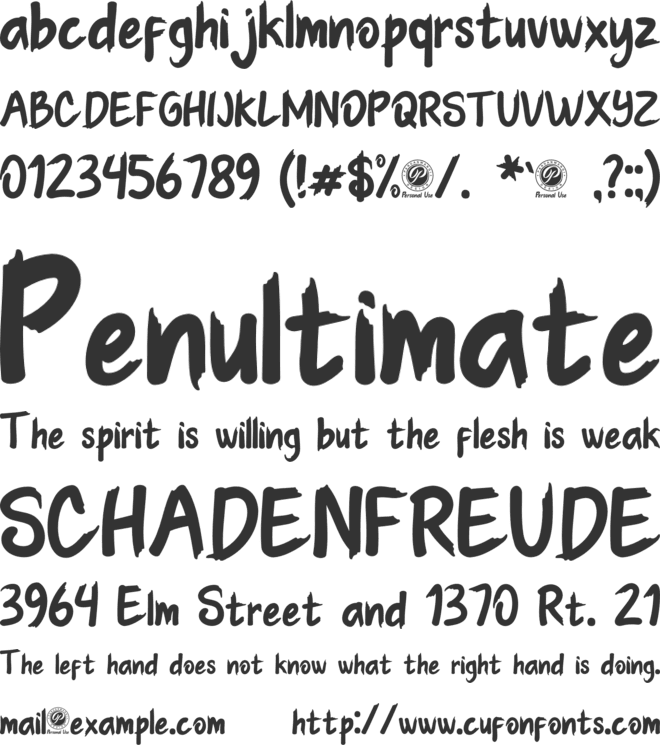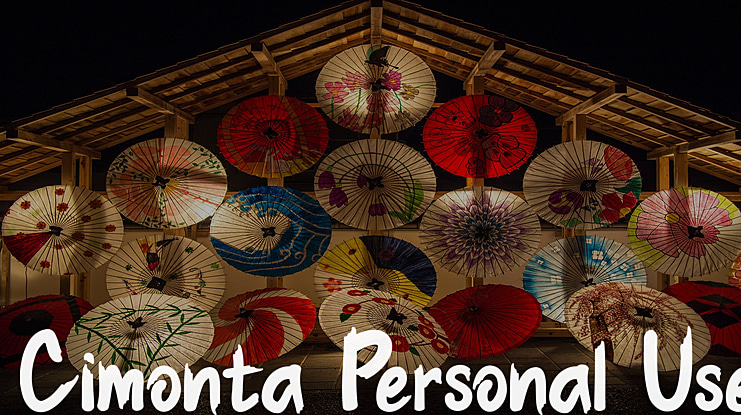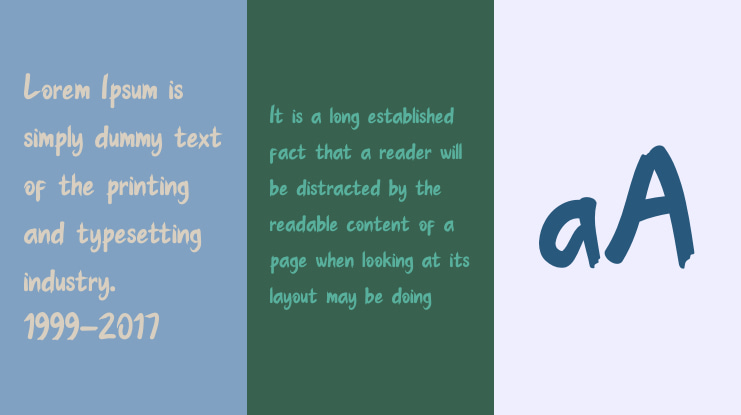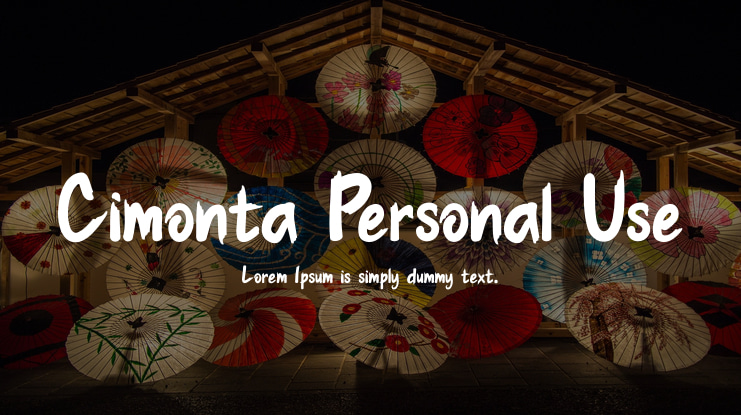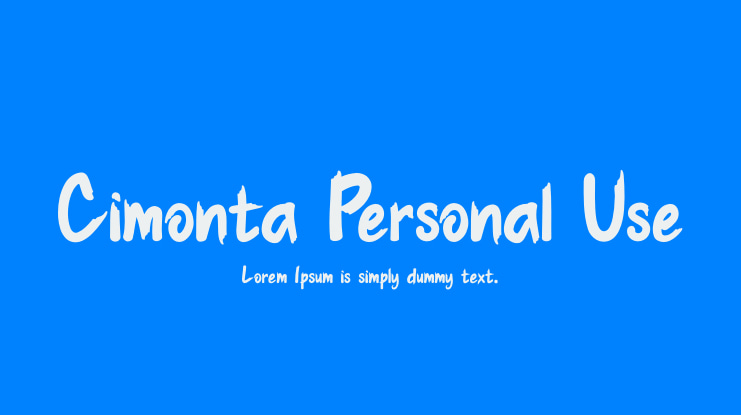
Cimonta Personal Use Font
Cimonta is a cute comic font, carefully crafted to become a true favourite. Its casual charm makes it seem incredibly simple, easy to read and, ultimately, incredibly versatile. Cimonta will look amazing in any context, whether it's used in a busy background or as a stand-alone title!This demo font is for personal use only and Commercial Use Not Allowed !,If you want to use this font for Commercial use, you need to purchase a Commercial license here:https://www.creativefabrica.com/product/cimonta/ref/142525/You can also Find other Great Fonts on Our site, Just Check our site here:https://www.creativefabrica.com/ref/142525/If you need a Special License, please feel free to contact us at: thank youregardspandanwangi